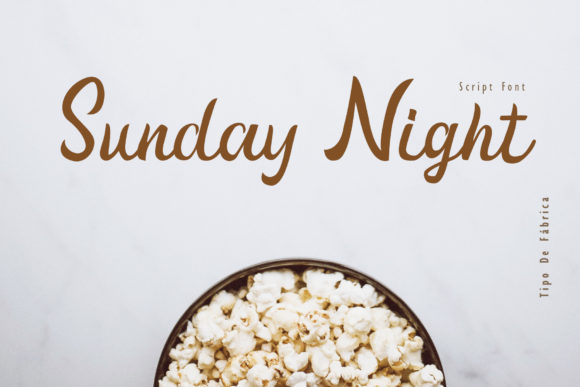
Dive into the world of Sunday Night Script, an enchanting script font family that will ignite your imagination and transform your creative designs. This captivating creation from the renowned Giant Design studio is a symphony of elegance and charm, ready to elevate your projects with its graceful strokes and warm personality.
Sunday Night Script is not just a font; it's an experience. It evokes the nostalgia of handwritten letters, the intimacy of a heartfelt note, and the timeless appeal of classic calligraphy. Its meticulously crafted characters dance across the digital canvas, carrying your words with a touch of artistry and sophistication.
Whether you're crafting wedding invitations, designing fashion apparel, or creating social media graphics, Sunday Night Script is your perfect companion. Its versatility knows no bounds, adapting seamlessly to a wide range of design aesthetics. From rustic and vintage to modern and minimalist, this font family adds a touch of magic to every project.
Imagine the joy of your wedding guests as they receive invitations adorned with the flowing script of Sunday Night. The delicate curves and playful flourishes will set the tone for a day filled with romance and celebration. Fashion designers will find inspiration in the font's ability to capture the essence of their creations, adding a touch of elegance to clothing labels, product packaging, and promotional materials.
Step into the realm of Instagram stories and social media posts, where Sunday Night Script captivates audiences with its visual allure. Its natural and organic feel perfectly complements images of fashion, beauty, travel, and lifestyle, making your content stand out in the crowded digital landscape.
Sunday Night Script is more than just a font; it's a storyteller, a muse, and a creative force. Let its enchanting characters guide your imagination as you craft designs that resonate with your audience on a deeper level. Embrace the beauty of hand-lettering and experience the transformative power of Sunday Night Script today.